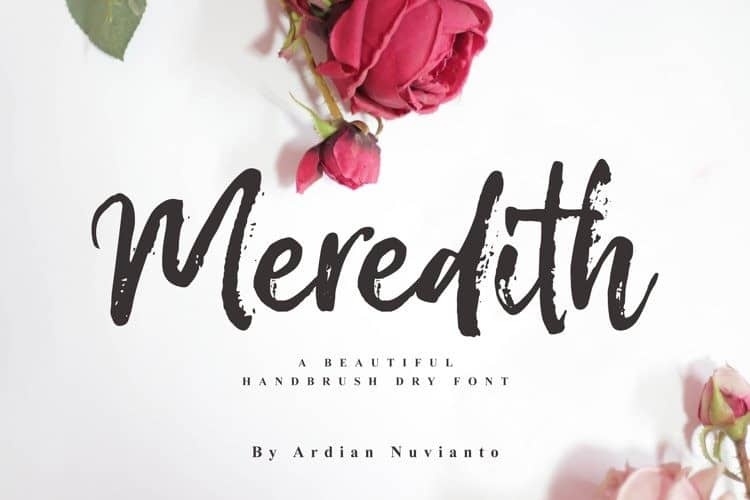
Meredith Font
Meredith Brush Font, designed by Ardian Nuvianto is a fancy brush font with natural scratch movement perfect for your amazing project. This font is perfect for beauty product, cover album, magazine, book cover, cover product, banner, brand packaging, etc.